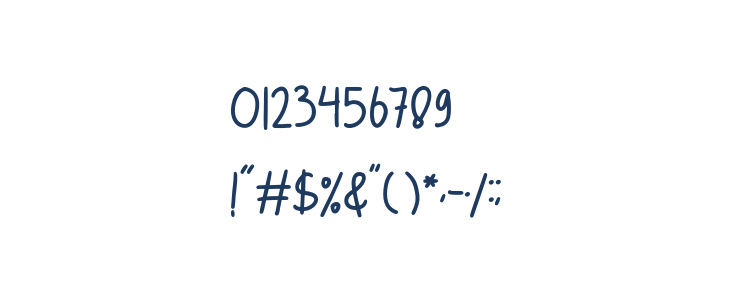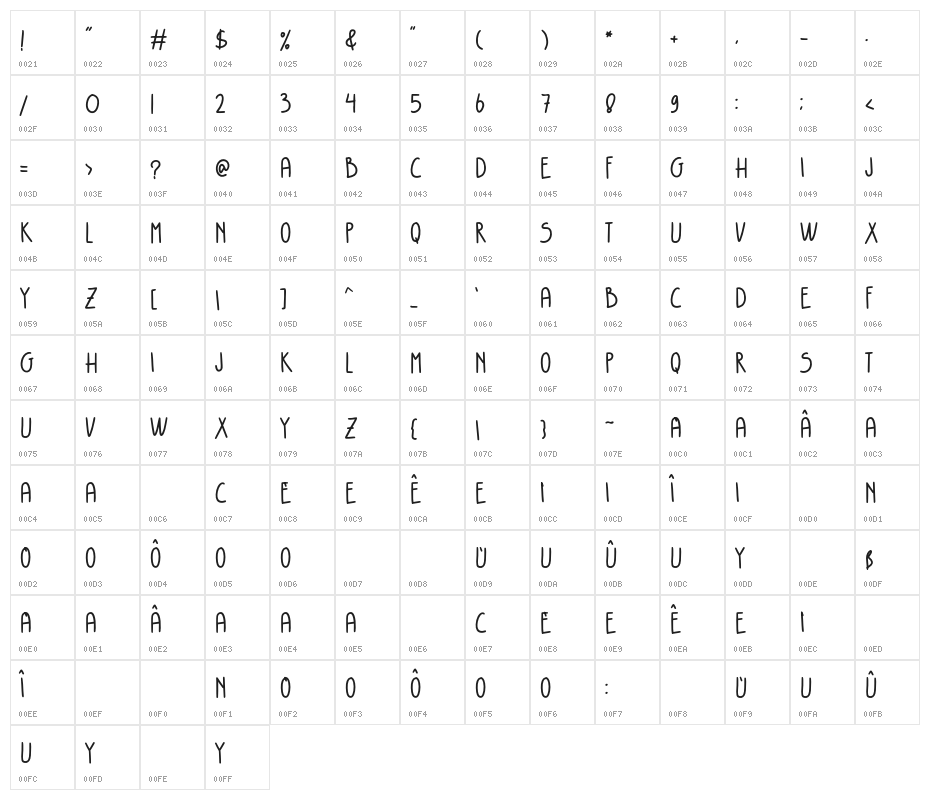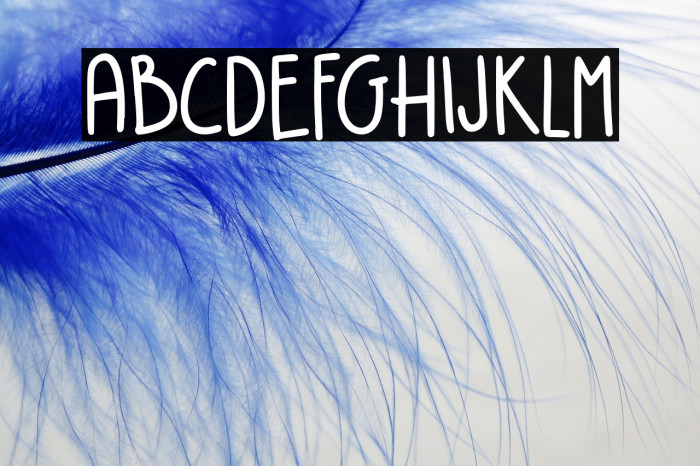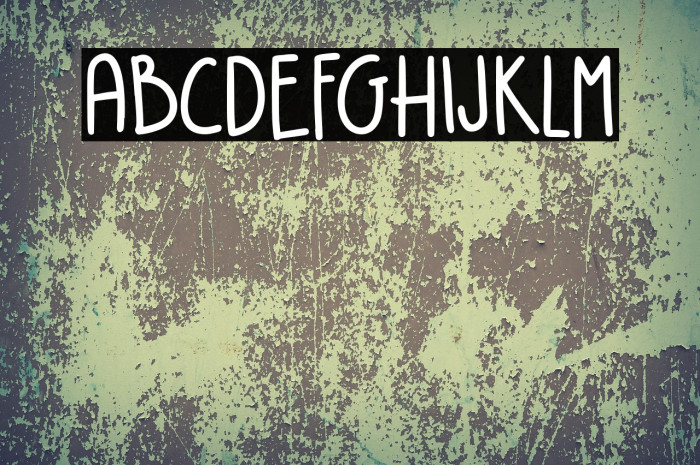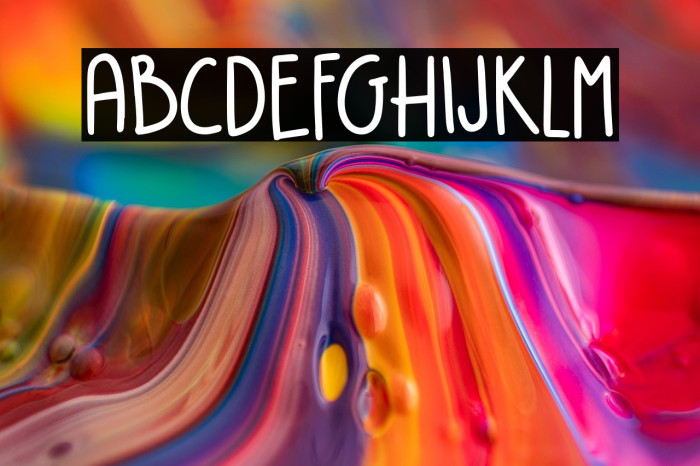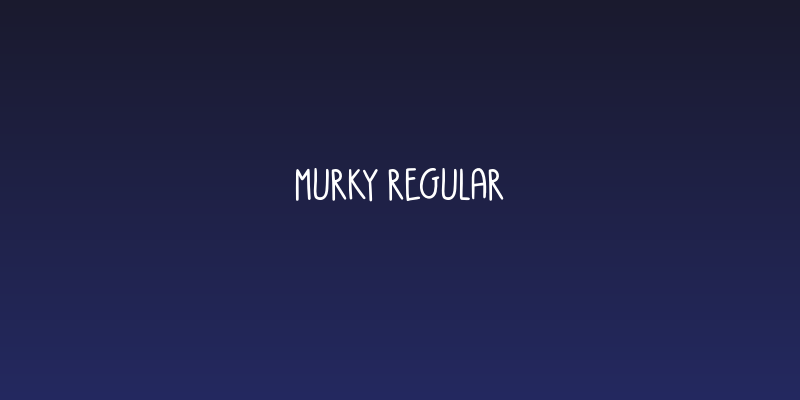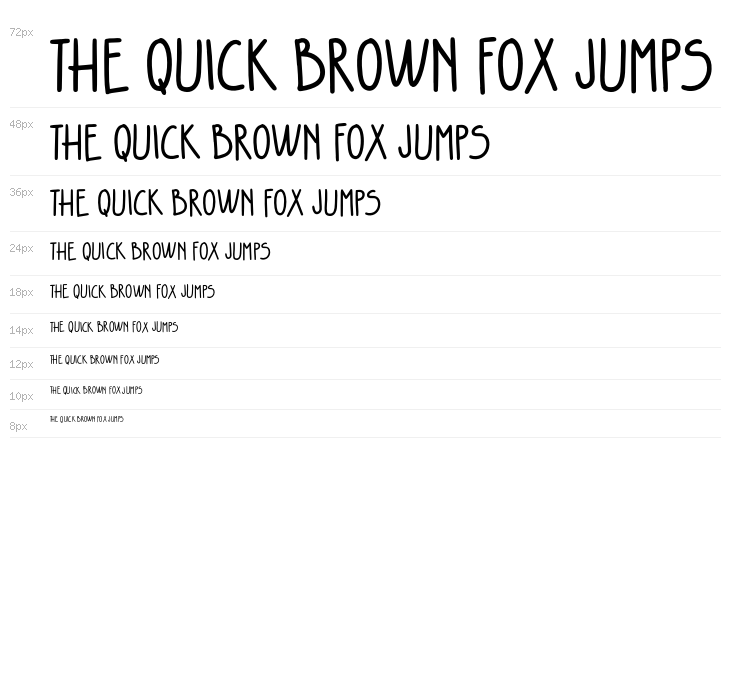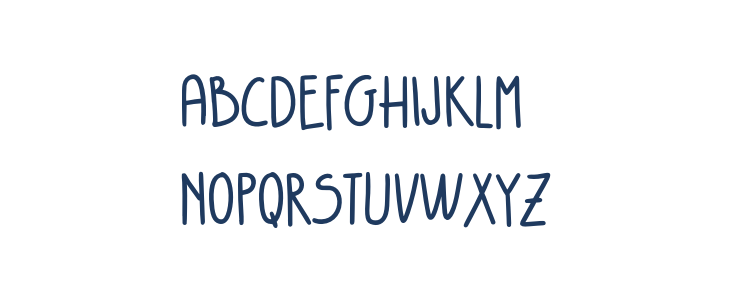
Murky Regular Font
Murky Regular Description
This font features a playful and casual handwritten style, characterized by its rounded and slightly irregular letterforms. The strokes are consistent in weight, giving it a uniform appearance while maintaining a friendly and approachable vibe. The characters are slightly condensed, which adds to its informal charm. This font includes a full set of uppercase and lowercase letters, numbers, and a variety of special characters, making it versatile for various uses. Its simplicity and readability make it suitable for both digital and print media.
| Use Case | Headlines, Informal text, Branding |
| Proposed Projects | Ideal for greeting cards, children's books, casual branding, and social media graphics. |